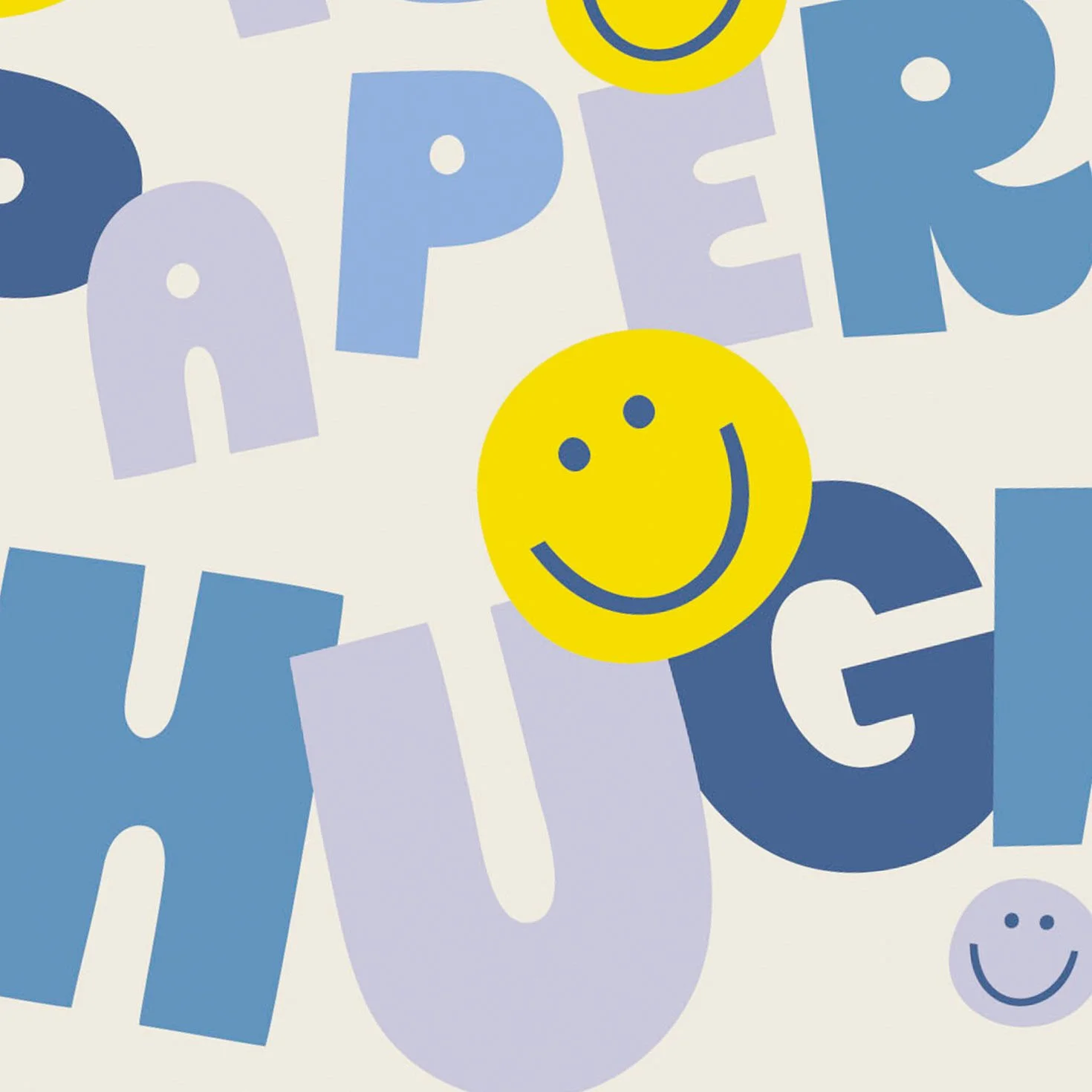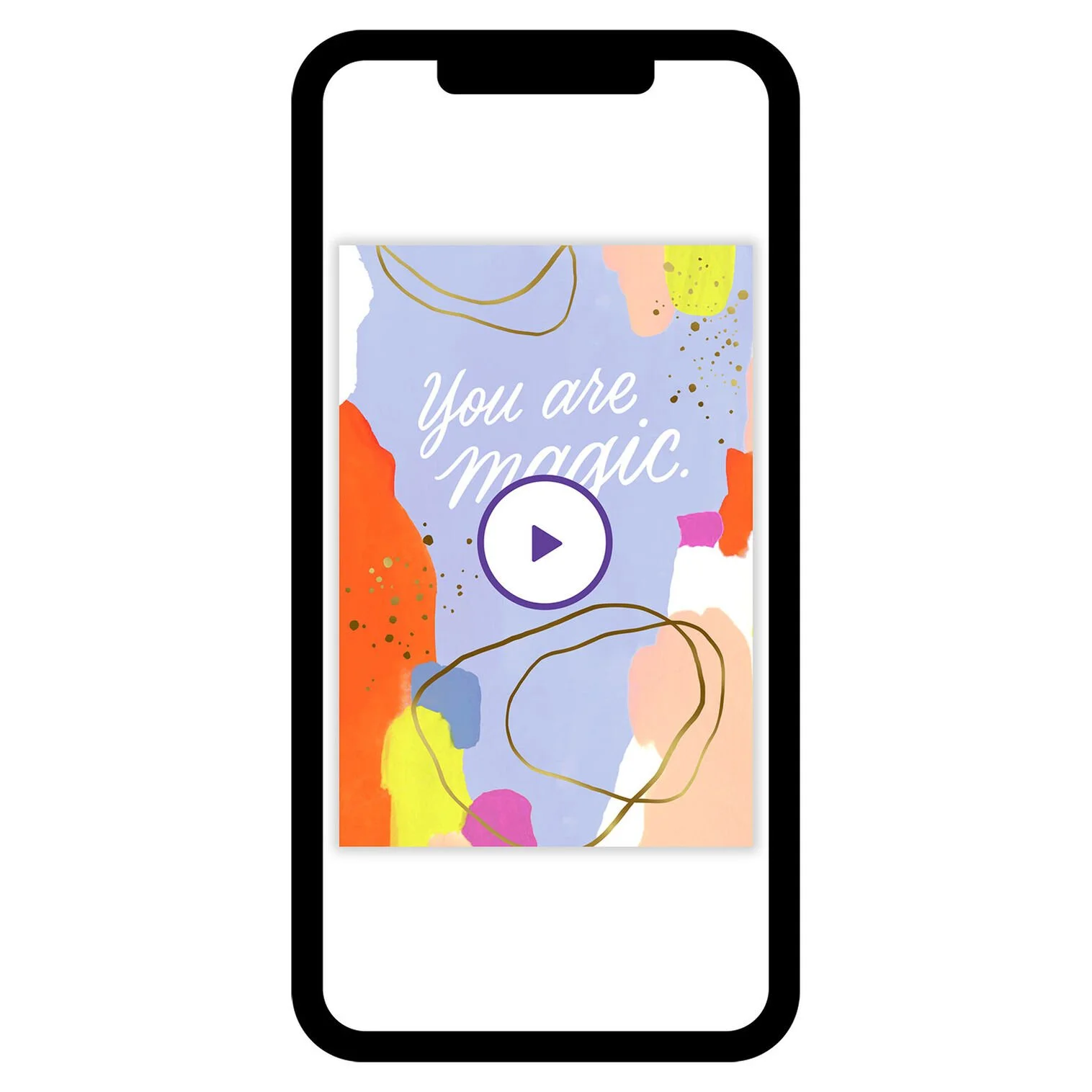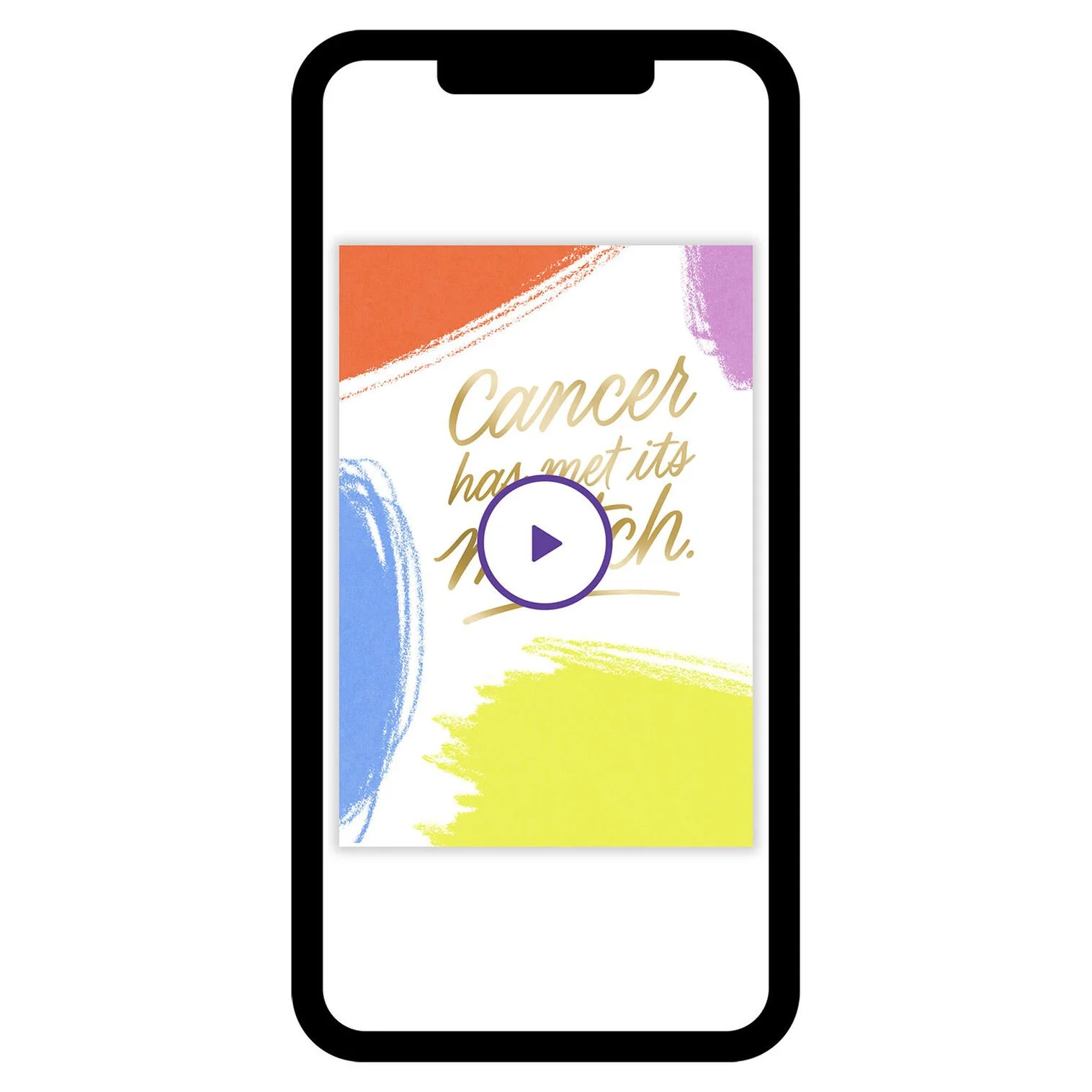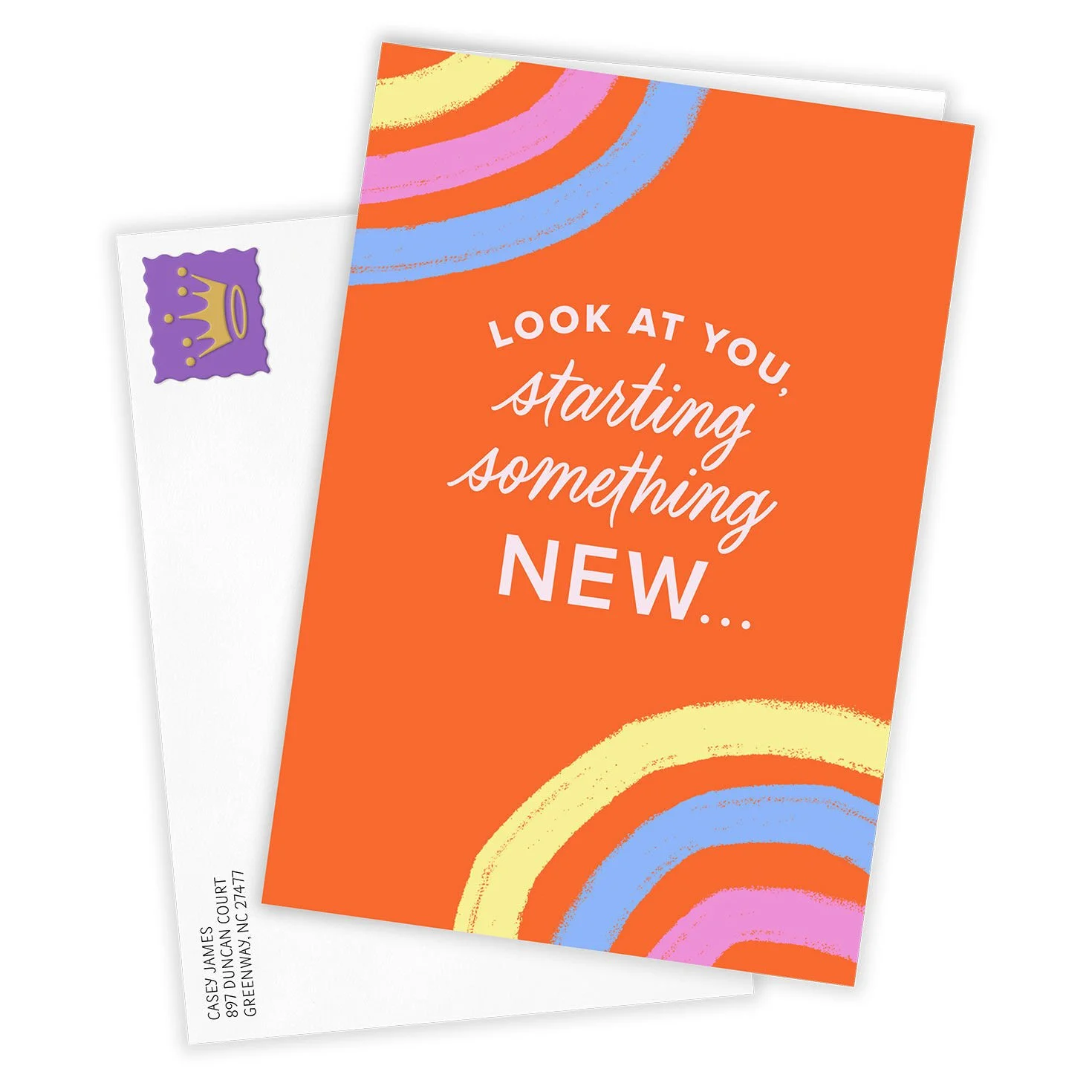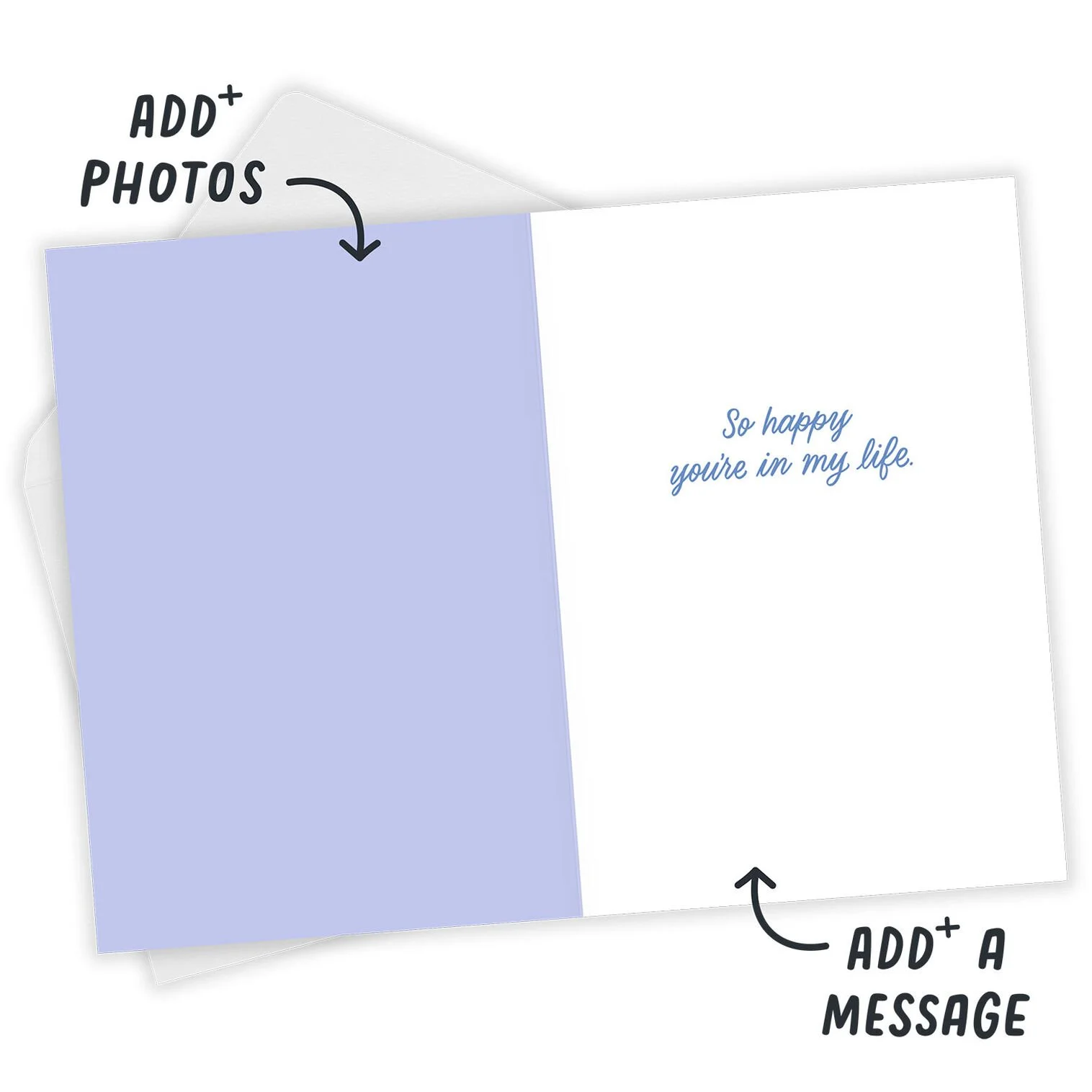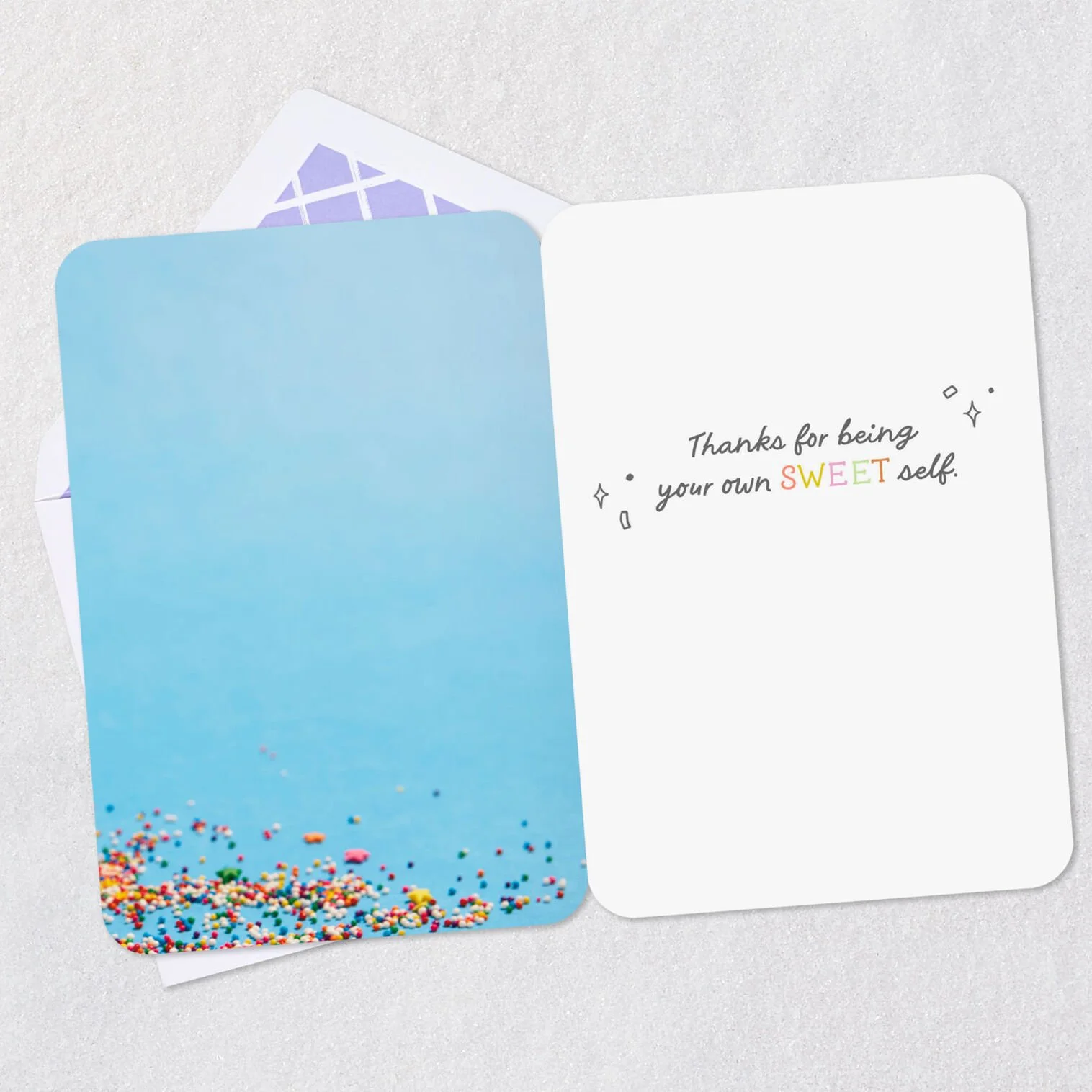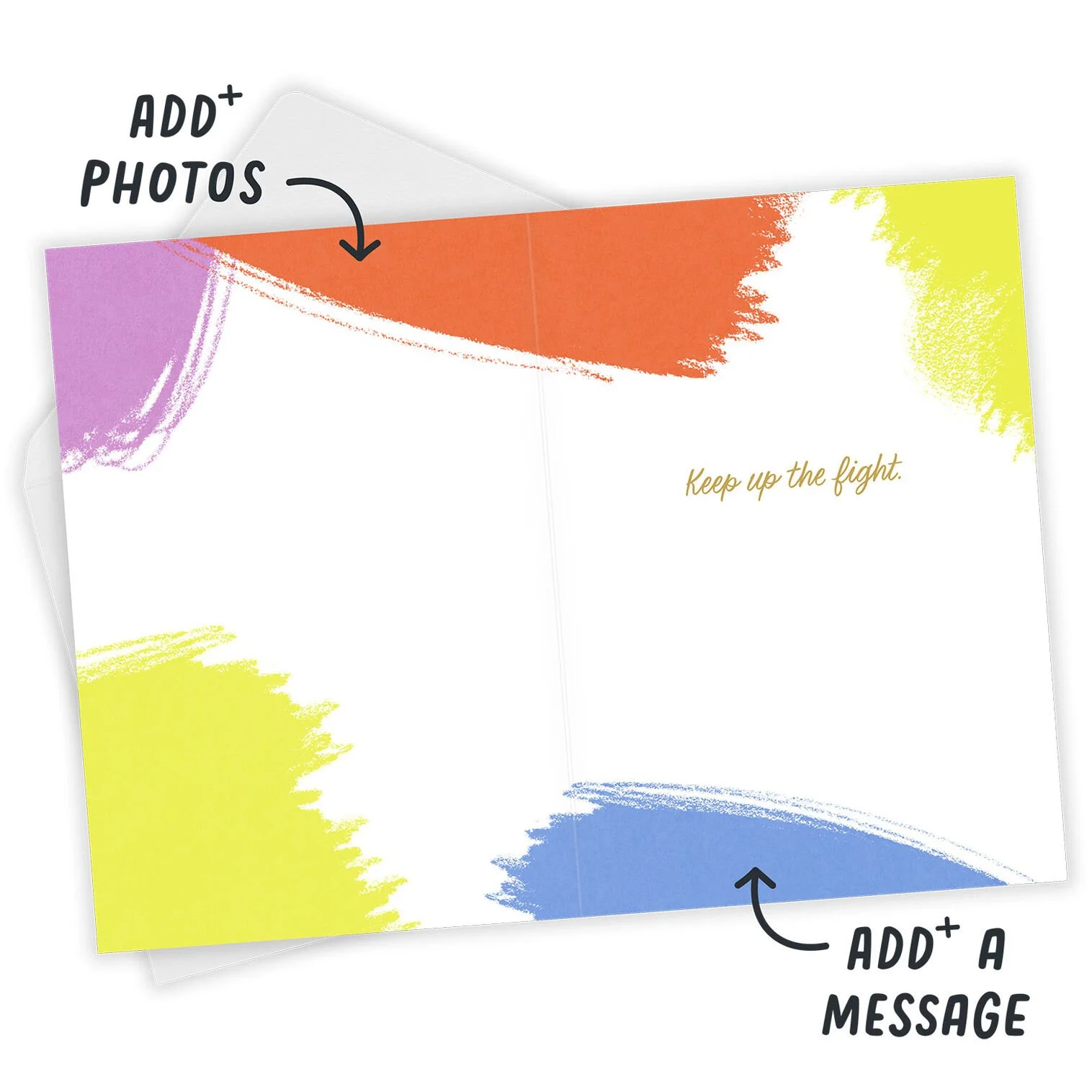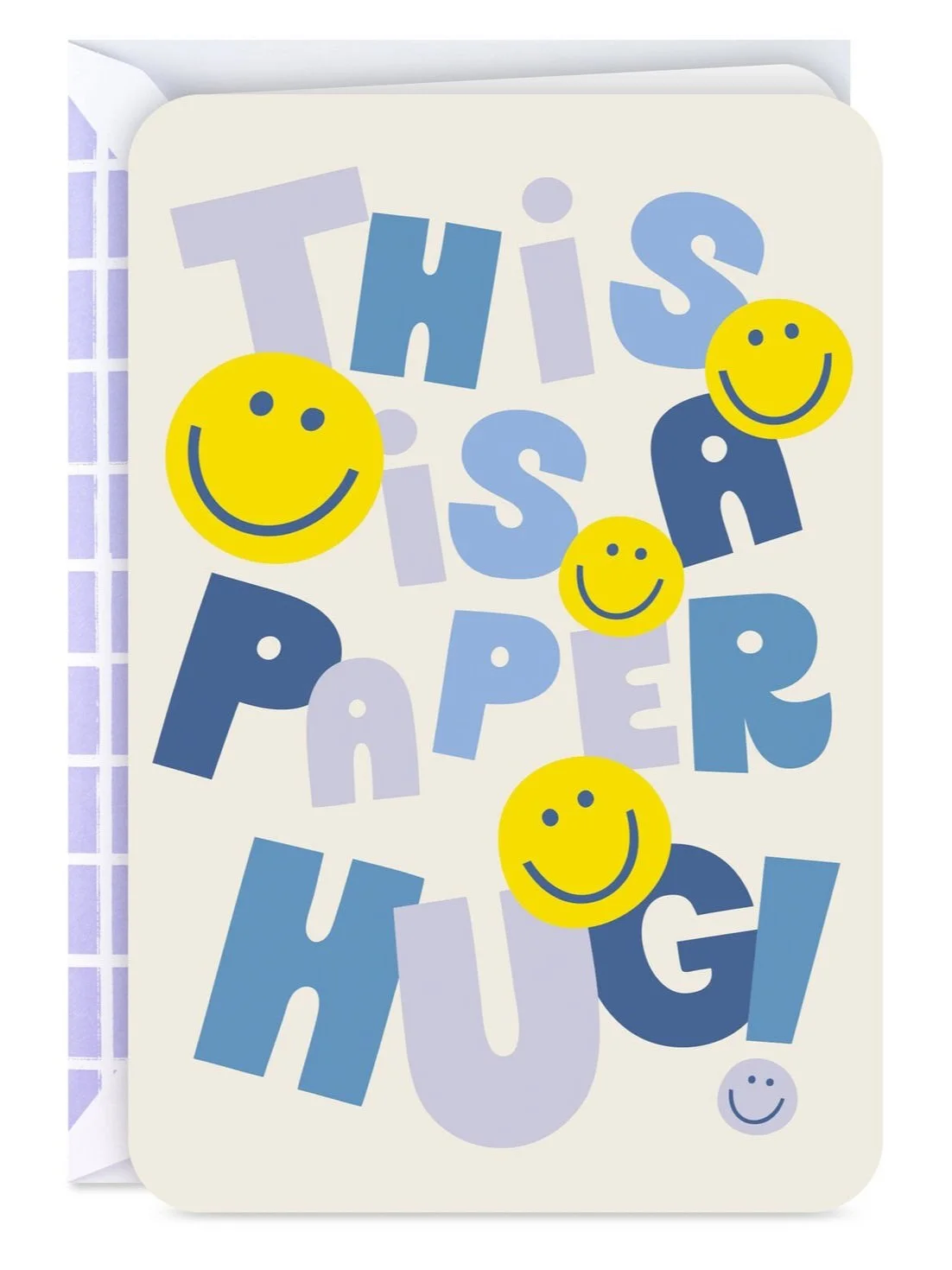
In honor of the release of Wicked: For Good I’m so excited to share I had the opportunity to create this lettering for Hallmark’s Licensed glassware collection. Now I just need to see the movie!
It’s not quite feeling like Fall yet in Kansas City but it’s officially here! Fallmark is also in full swing–Grant is loving Hallmark’s illustrated pop-up “The Great Pumpkin Charlie Brown” and we are having the best time seeing all the Halloween decorations show up around the neighborhood. Enjoy this fun illustration I did for Hallmark to celebrate the season!
Awhile back I had the opportunity to collaborate with the Hallmark Signature team on some new lettering styles and have been eagerly awaiting these cards to make it to market! There are a few more that I’m hoping will be available on Hallmark’s website soon. For now, enjoy this tailored typography:
Some fun Summer lettering I created for Hallmark was shared today. Fittingly we spent the evening at the pool to beat the heat!
My Fieldnotes font was also utilized on a few Just Because cards that you can customize with personal messages and photos. I also have to call out the wonderful new logo for Just Because by Chris Russell.
The Just Because line also utilized one of my newer font collaborations with Josh, a soft serif Good Cheer. This cutie golden doodle card even used both Fieldnotes and Good Cheer together! Below you can see Good Cheer mixed with a new font by Chris Russel and Josh Scruggs called Clark.